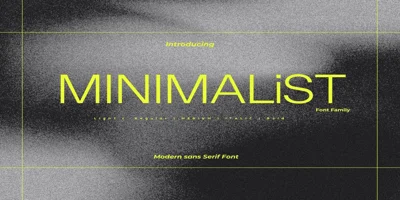
Minima Font
Minima Font is perfect for minimalist design studios, clean architecture firms, modern art galleries, Scandinavian furniture brands, zen wellness centers, contemporary tech companies, and sophisticated lifestyle publications. This refined typeface embodies pure simplicity and essential design principles, bringing clean aesthetic clarity and timeless minimalism to any design project celebrating reduction, purity, and functional elegance.
What makes Minima Font exciting is its masterful balance of essential simplicity and sophisticated refinement that perfectly captures the essence of minimalist design philosophy and clean aesthetic principles. The font features stripped-down letterforms with essential proportions and precise geometric clarity that evoke both Scandinavian design sensibilities and modern architectural purity. Its serene character appeals to design-conscious audiences while maintaining exceptional readability for both digital interfaces and print applications.
The Minima Font family includes comprehensive weight variations from ultra-light to regular, complete with matching italic styles and minimal ornamental elements. The character set features essential ligatures, geometric symbols, clean alternates, and refined decorative accents that enhance the font's sophisticated appeal. Advanced OpenType features provide precise typography for international minimalist brands and multilingual clean design applications.
Whether you're designing minimalist brand identities, creating clean architectural materials, or developing sophisticated lifestyle content, Minima Font provides exceptional purity and versatility. This essential typeface transforms ordinary text into refined minimalist experiences that celebrate design clarity while establishing distinguished recognition in competitive minimalist design and contemporary lifestyle marketplaces.